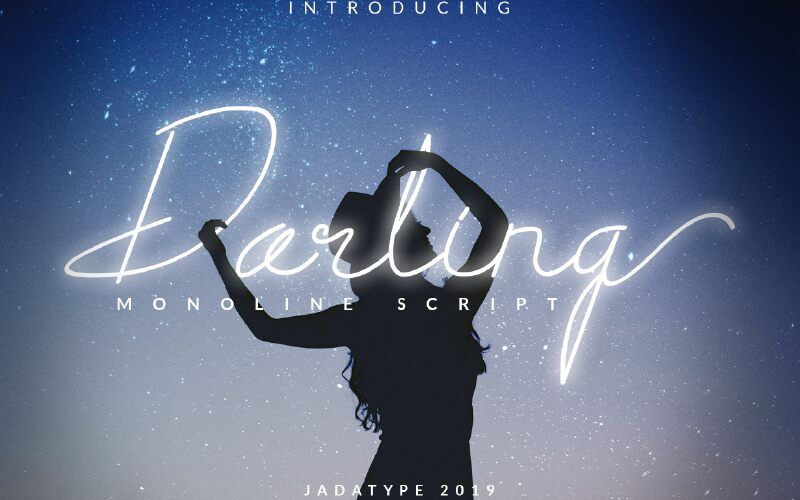
Darling
Darling, a delightful creation by Jadatype, is an exquisite handwritten font that exudes elegance and grace. With its delicate strokes and whimsical charm, this font adds a touch of sophistication to any project.
The extra-light weight of Darling lends itself effortlessly to feminine branding materials such as wedding invitations, fashion magazines, and luxury beauty products. Its graceful curves make it perfect for romantic novels or heartfelt poetry collections.
Let Darling be the muse for your next creative endeavor and watch your words dance across the page with enchanting allure.